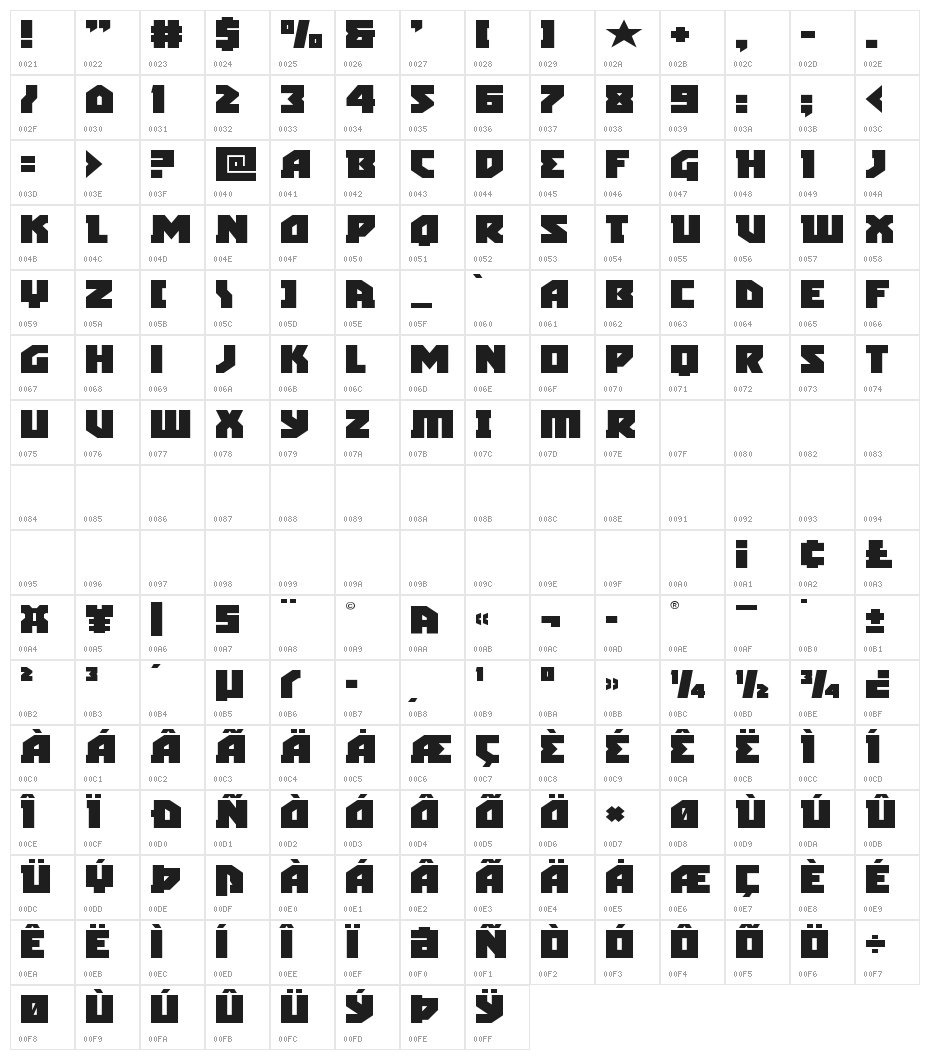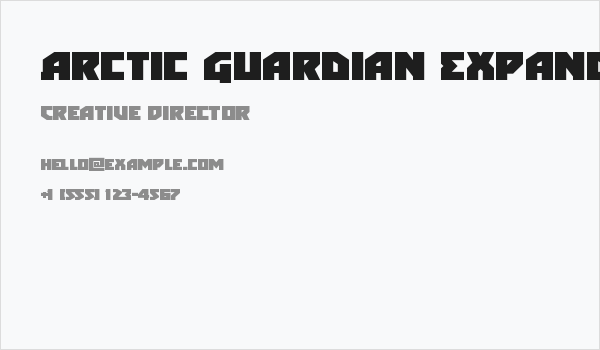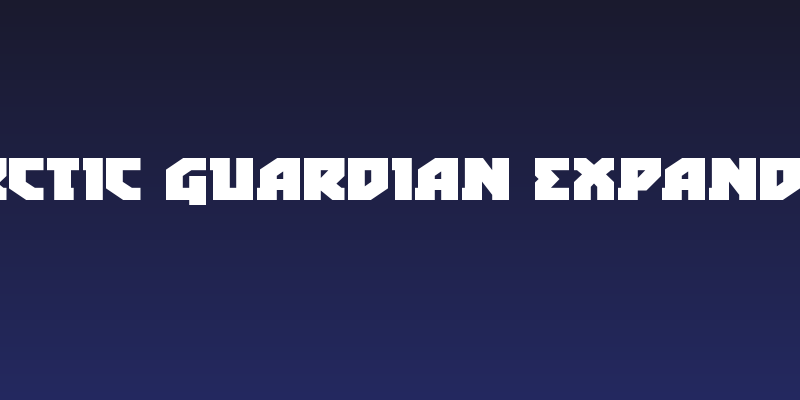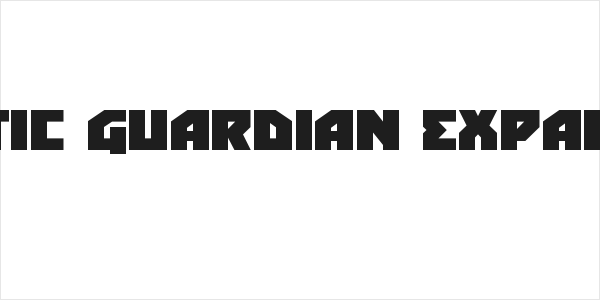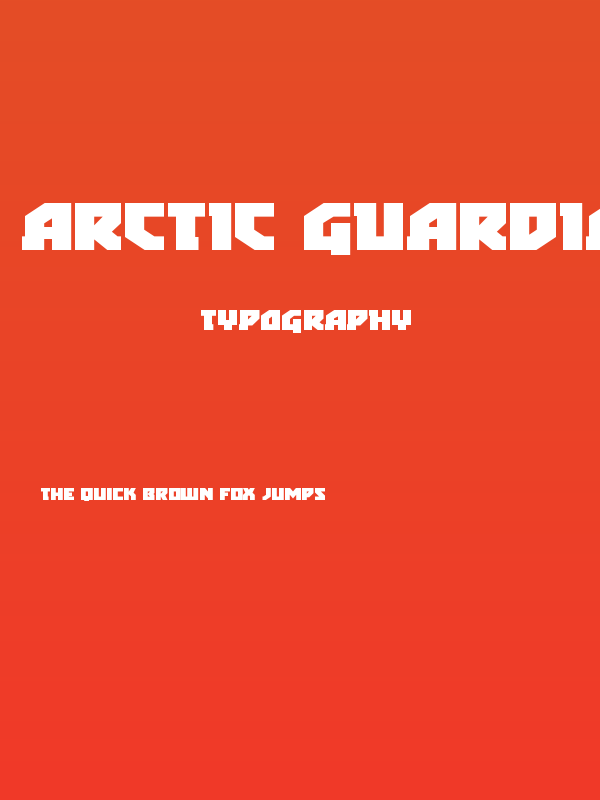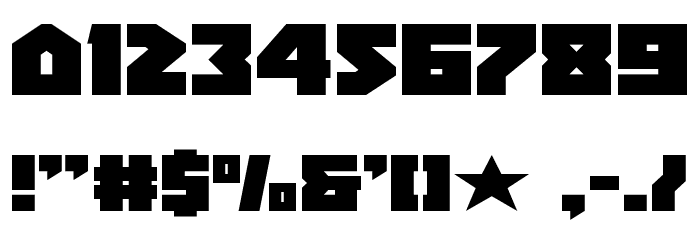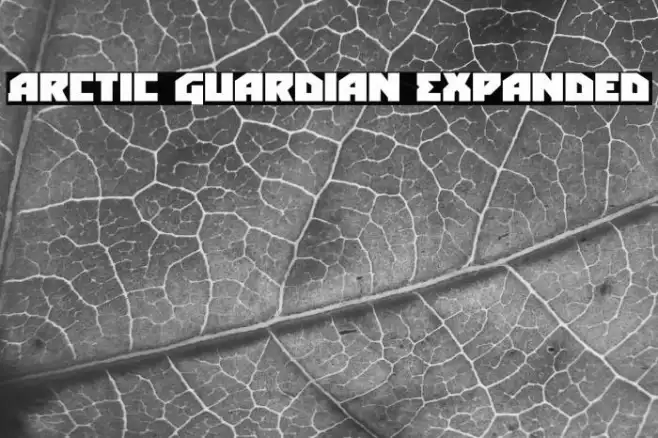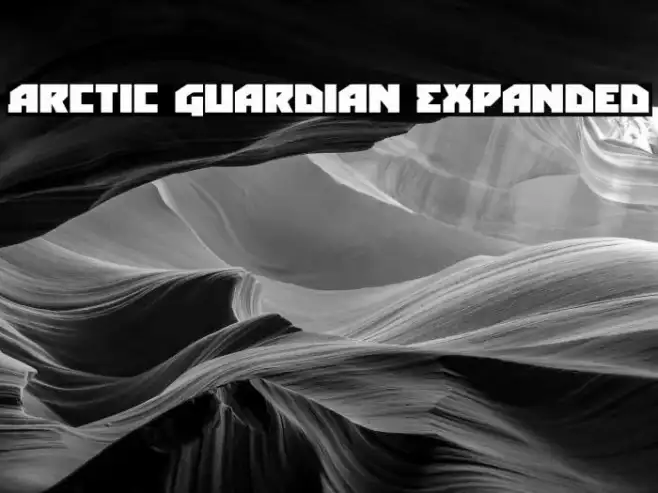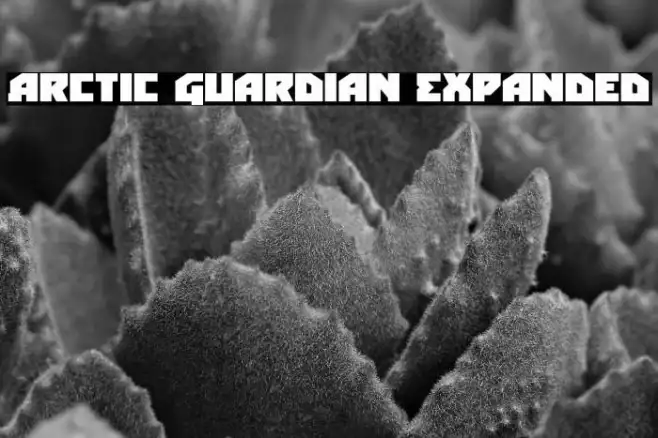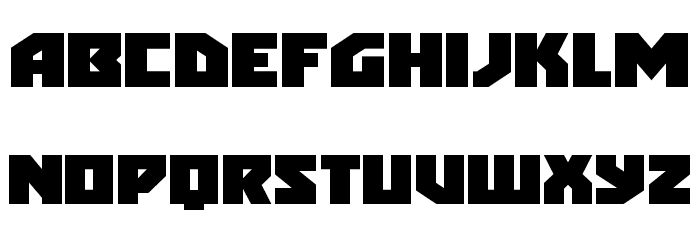
Arctic Guardian Expanded Font
Arctic Guardian Expanded Description
This font features a bold, geometric design with sharp angles and a blocky appearance. The uppercase and lowercase letters maintain a consistent width, creating a uniform look across the text. The numbers and special characters follow the same angular style, contributing to a cohesive aesthetic. The font's strong lines and solid structure make it highly legible and impactful, suitable for attention-grabbing headlines or titles. Its expanded width gives it a commanding presence, ideal for designs that require a bold statement.